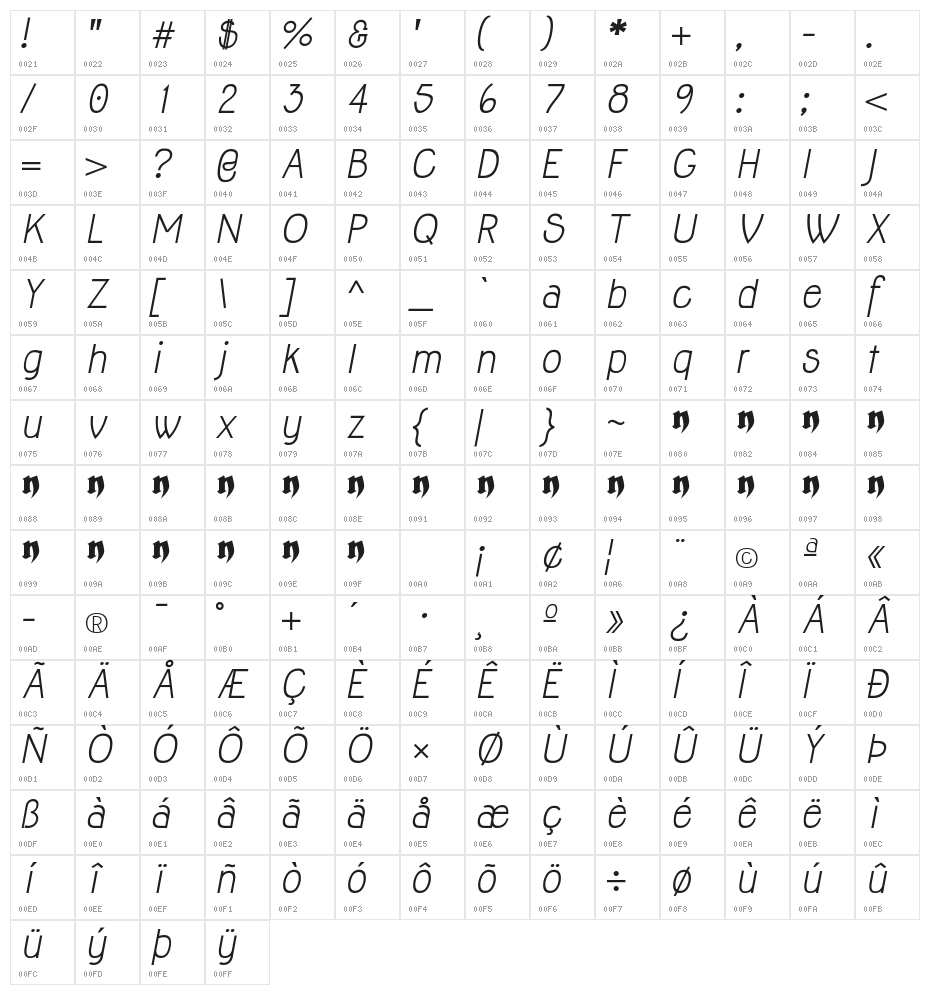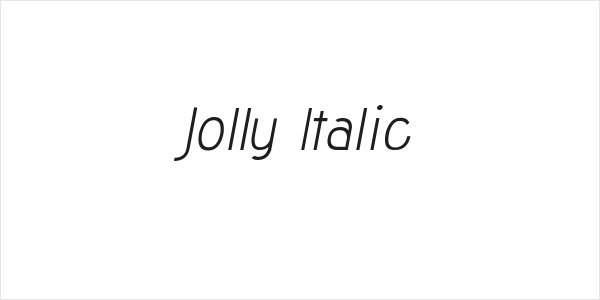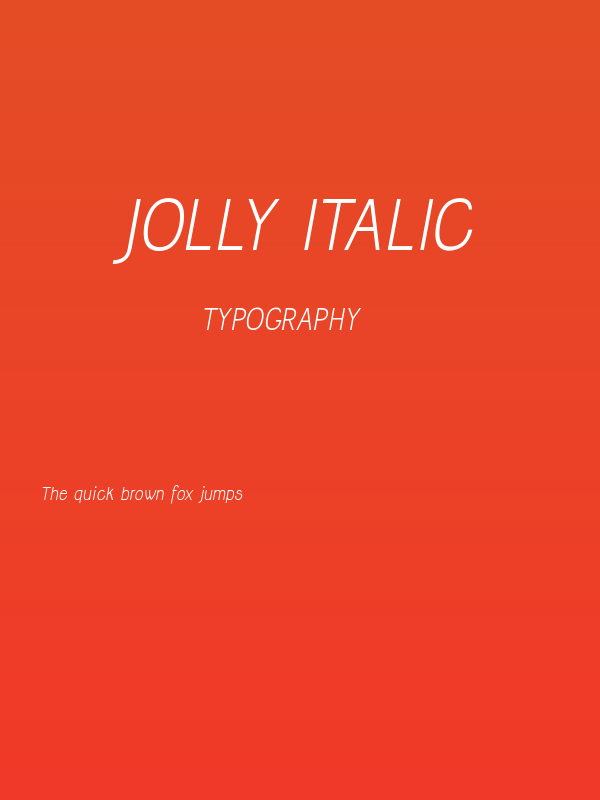
Jolly Italic Font
Jolly Italic Description
This font features a sleek, italicized style with a modern and clean appearance. The characters are slightly slanted, giving a dynamic and fluid look. The strokes are consistent in thickness, providing a uniform and harmonious feel. The uppercase letters are tall and elegant, while the lowercase letters maintain a smooth and rounded form. The numerals are clear and easy to read, complementing the overall aesthetic. Special characters are well-integrated, maintaining the font's cohesive style. This typeface is versatile, suitable for various design applications.
| Proposed Projects | Ideal for branding, advertising, and editorial design projects. |